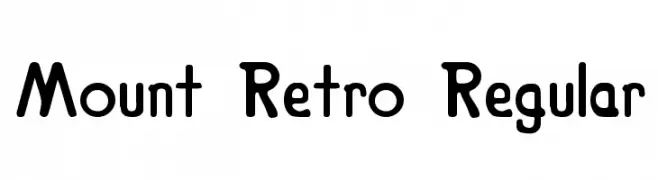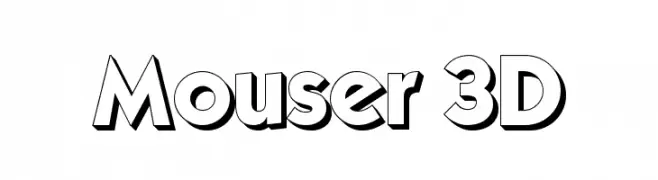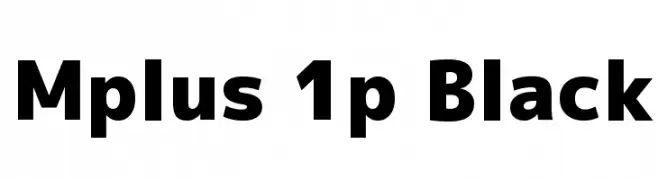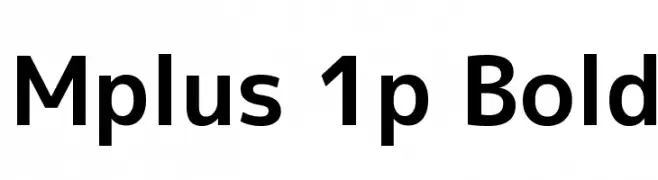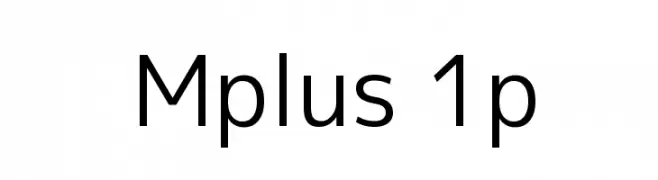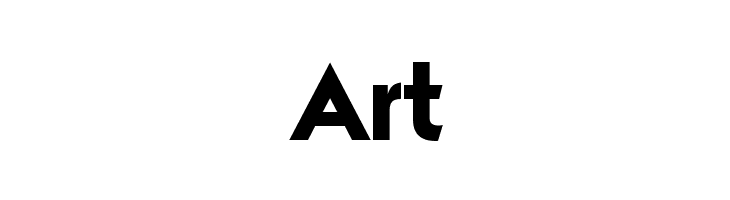
A diverse collection of bold, high-contrast symbols and icons.
A playful, rounded font with a modern retro feel and consistent weight.
A bold, modern font with clean, geometric shapes and strong impact.
A bold, italic font with a modern and dynamic style.
A bold, geometric outline font with clean lines and sharp angles.
A modern, geometric sans-serif font with a clean and minimalistic design.
A bold, modern font with thick strokes and uniform width, ideal for headlines.
A bold, modern sans-serif font with excellent readability and versatility.